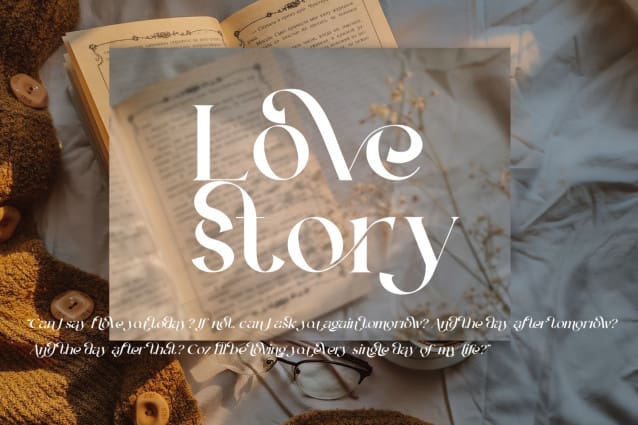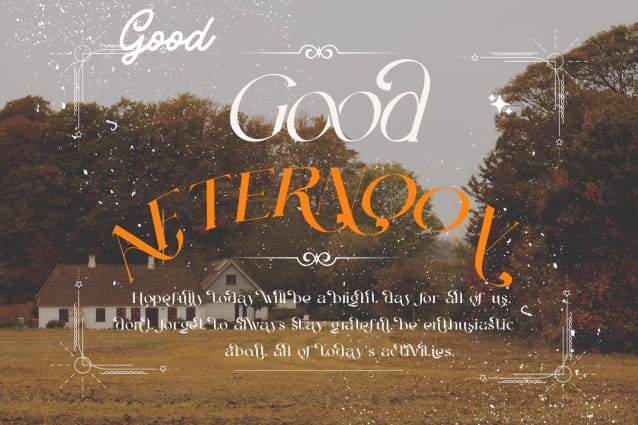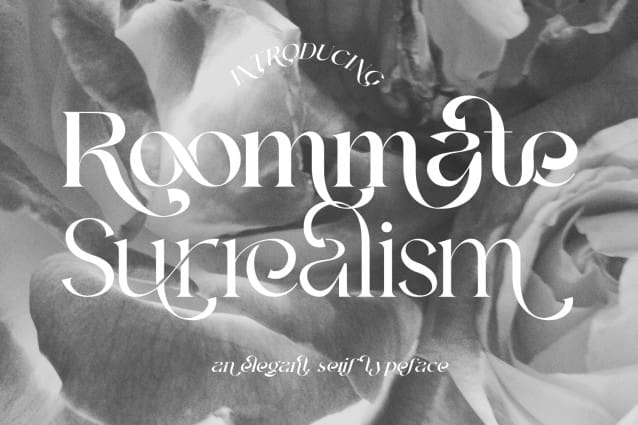
Roommate Surrealism Font
Roommate Surrealism Font is a balanced, smooth, elegant and stylish serif font. He has a beautiful character. This font, meticulously crafted, offers a perfect blend of timeless beauty and contemporary sophistication. It fits perfectly with invitation card designs, company logos, movie titles, movie names, business cards, book titles, brand names and various other designs.
Roommate Surrealism was built with OpenType features and includes 100 ligatures, alternate, numbers, punctuation, and it also supports other languages.